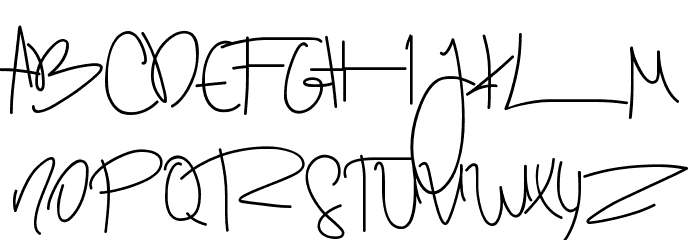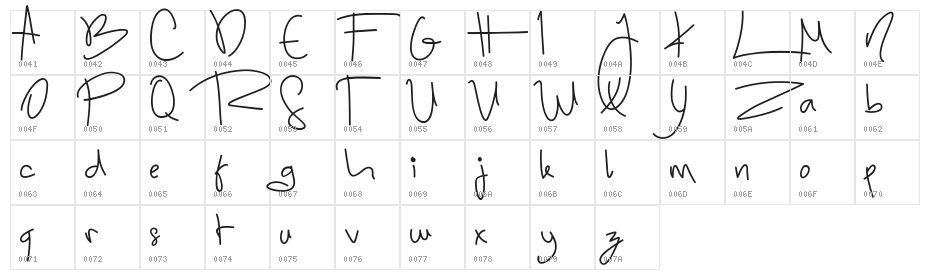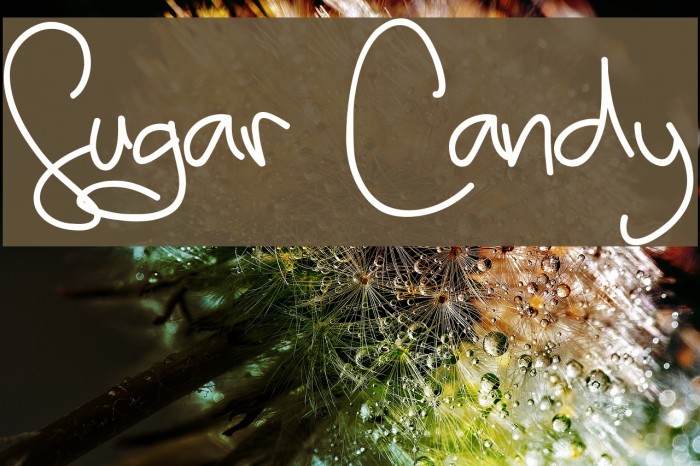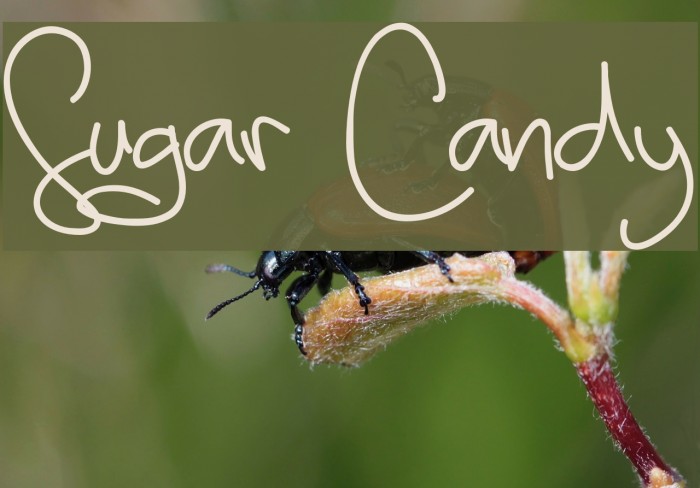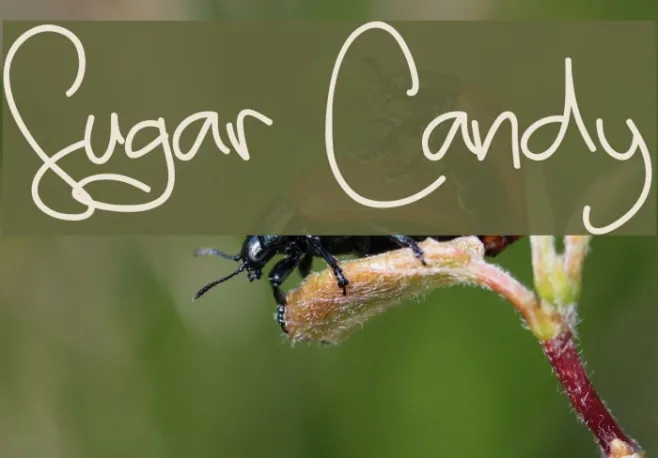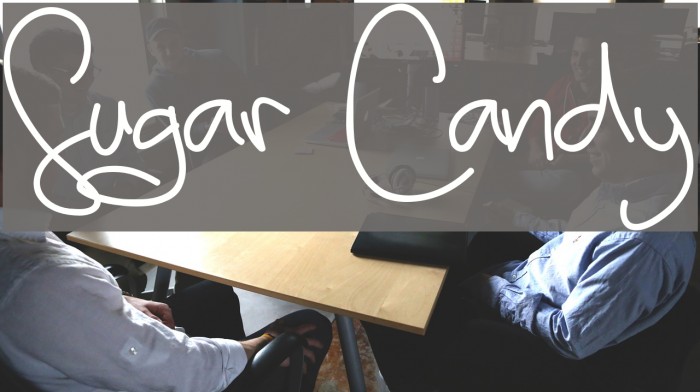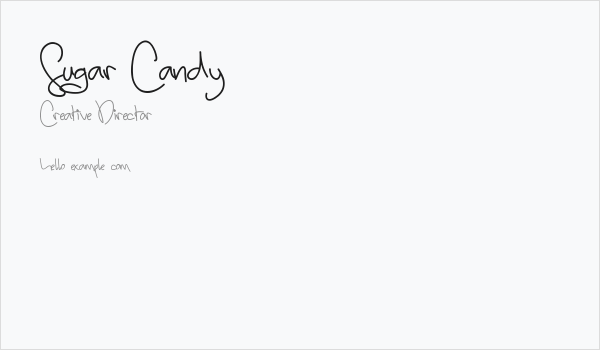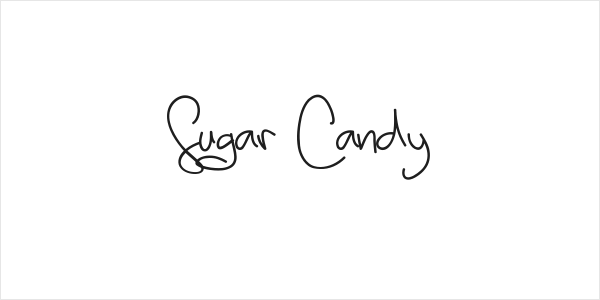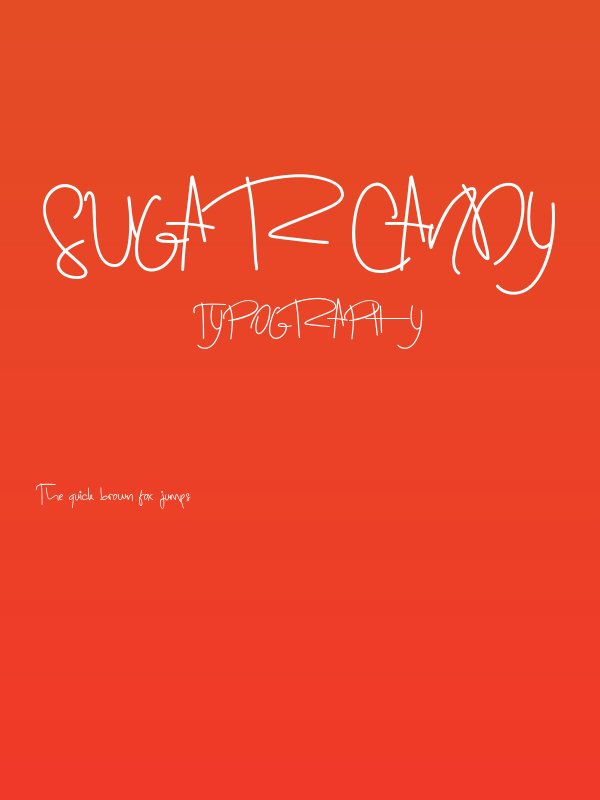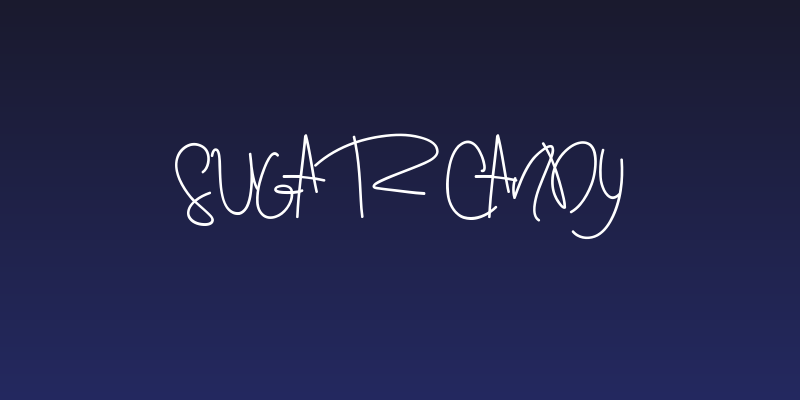
Sugar Candy Font
Sugar Candy Description
This font features a playful and whimsical handwritten style, characterized by its fluid and dynamic strokes. The letters are interconnected with a casual flair, creating a sense of movement and spontaneity. The uppercase and lowercase letters maintain a consistent flow, while the numbers and special characters integrate seamlessly with the overall design. The font's unique personality is evident in its irregular shapes and varying line thickness, which add to its charm and individuality.
| Proposed Projects | Ideal for creative projects such as greeting cards, invitations, playful branding, and artistic posters. |